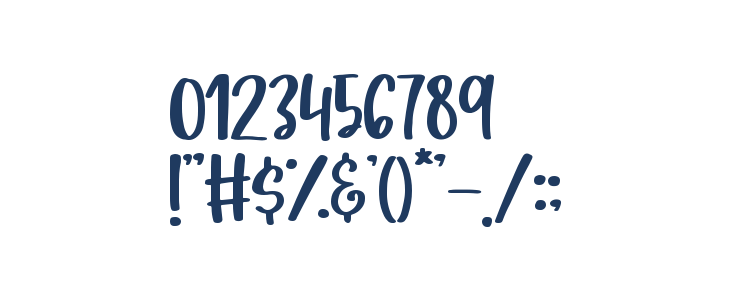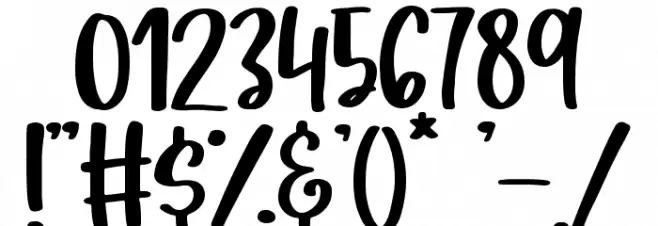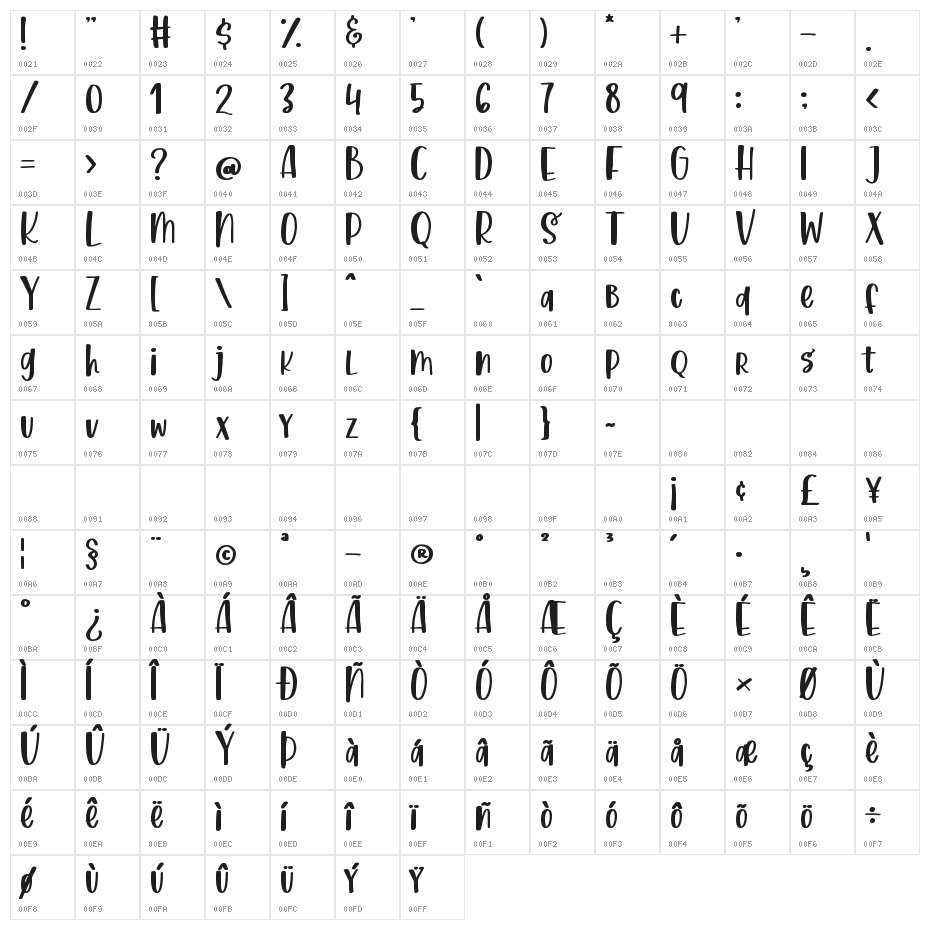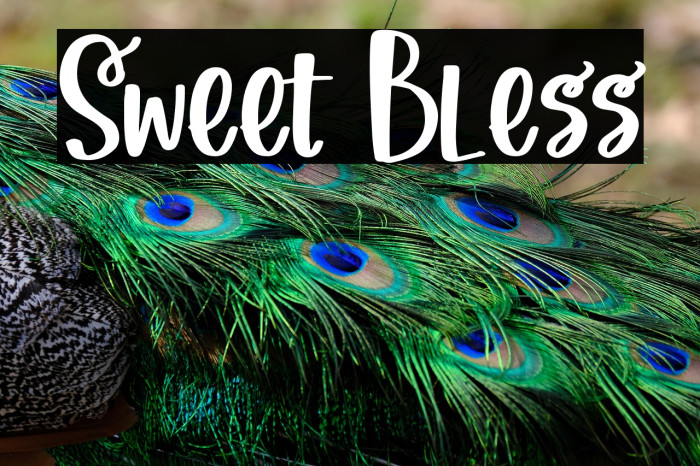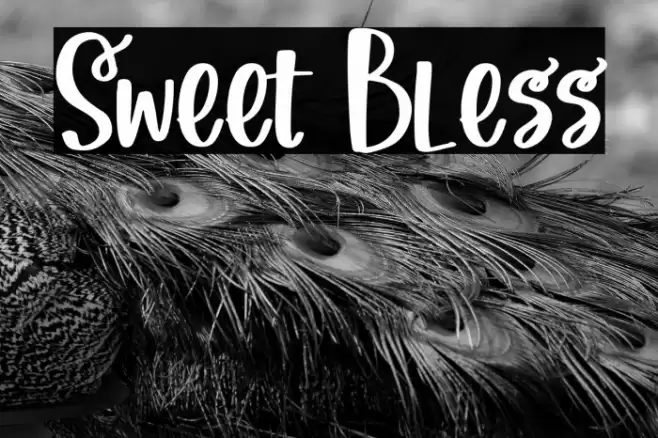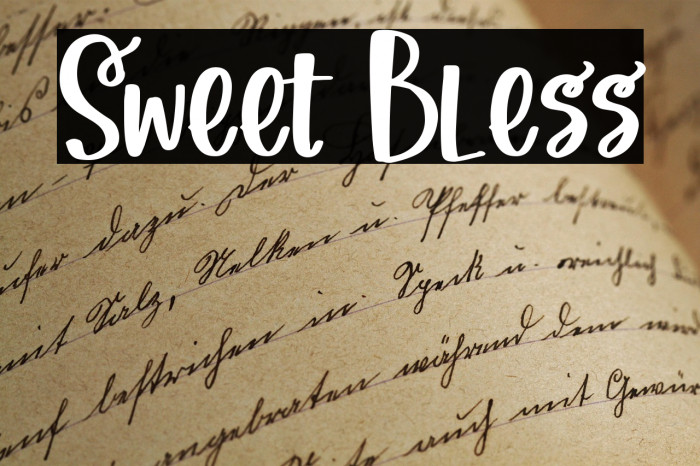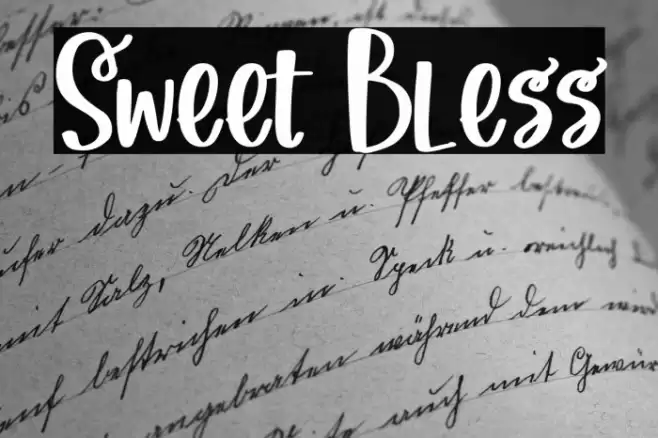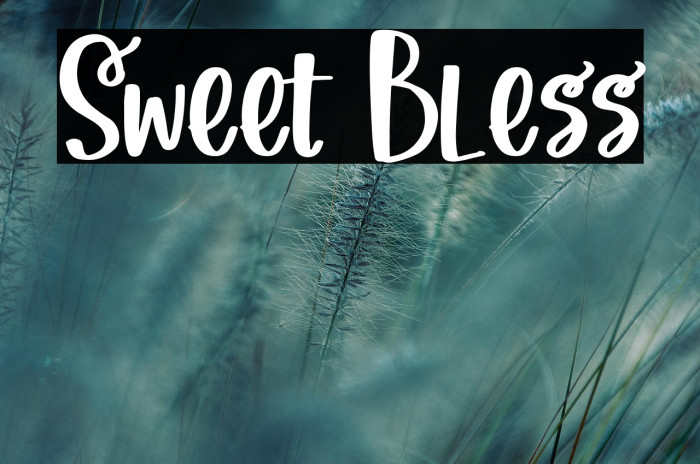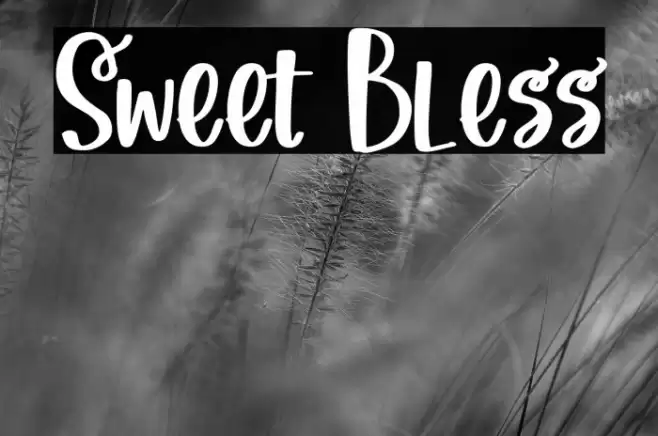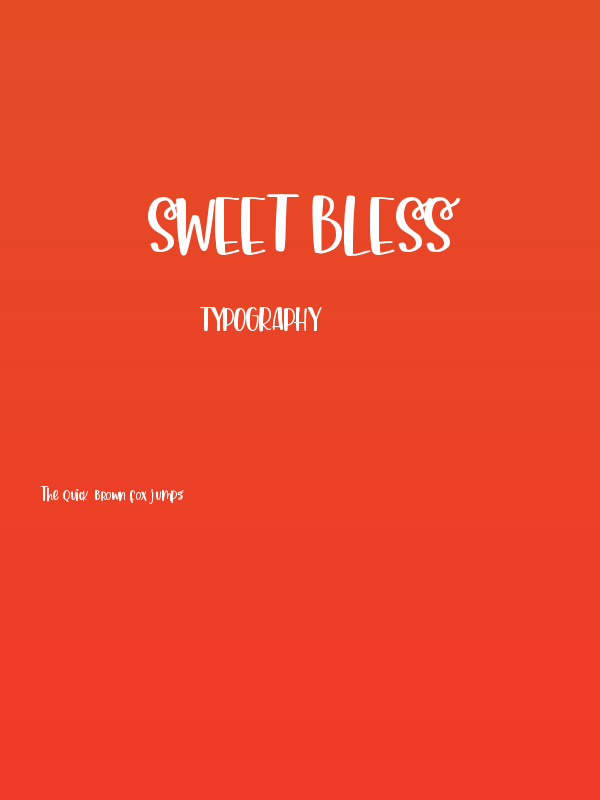
Sweet Bless Font
Sweet Bless Description
This font features a playful and energetic style, characterized by its bold and flowing letterforms. The uppercase and lowercase letters exhibit a hand-drawn quality, with varying stroke thicknesses that add a dynamic feel. The characters are slightly condensed, giving a compact appearance while maintaining readability. The numbers and special characters follow the same lively design, making them suitable for creative and informal projects. The overall look is modern and whimsical, perfect for capturing attention and conveying a sense of fun.
| Proposed Projects | Ideal for greeting cards, children's books, playful branding, and social media graphics. |